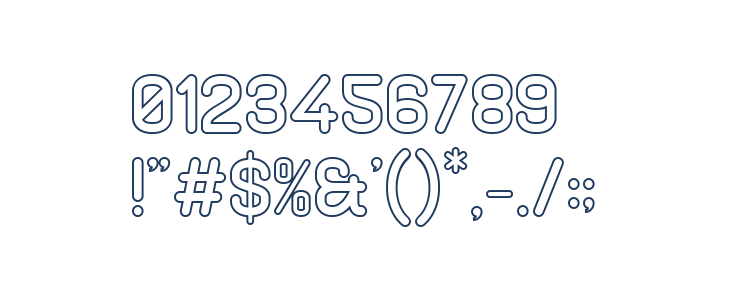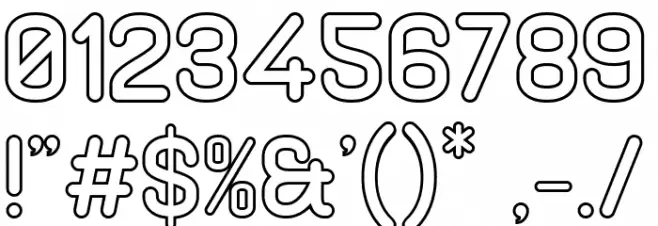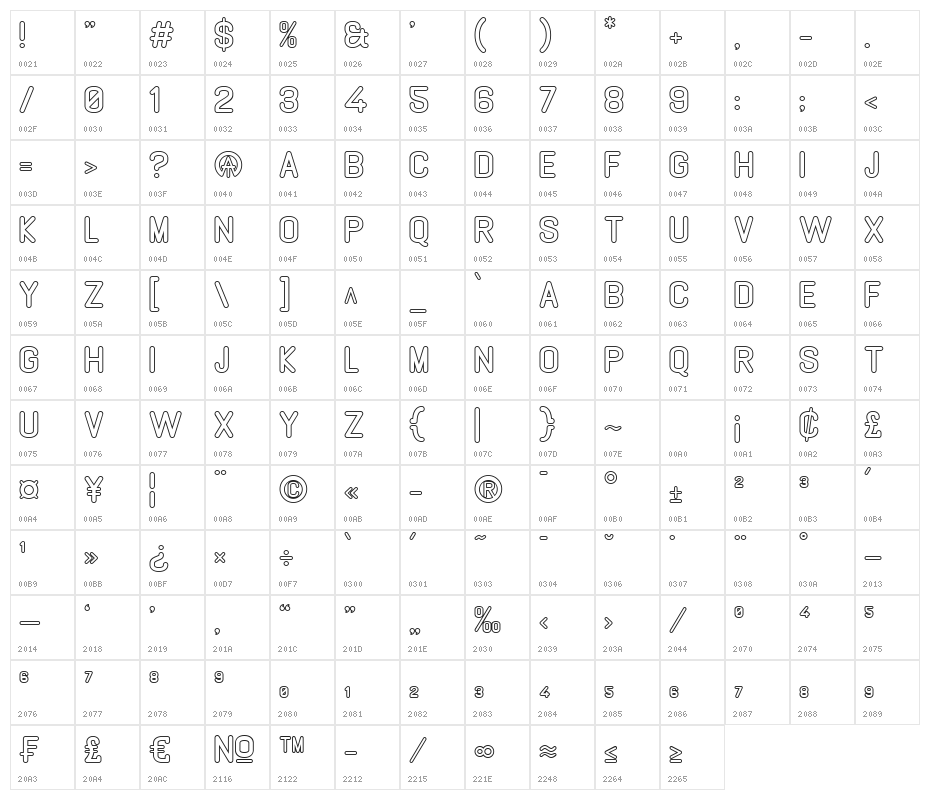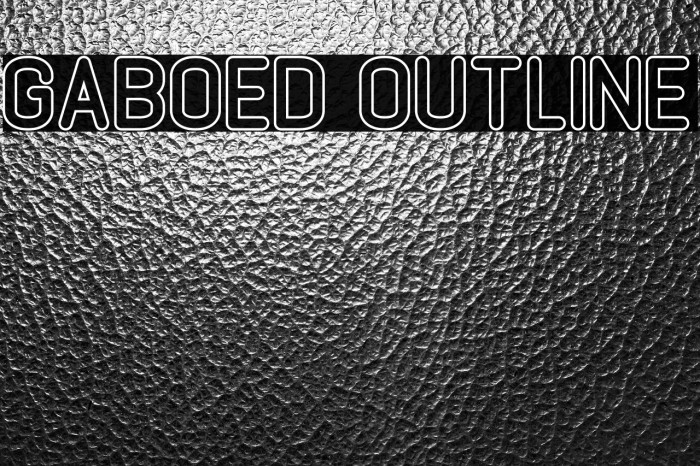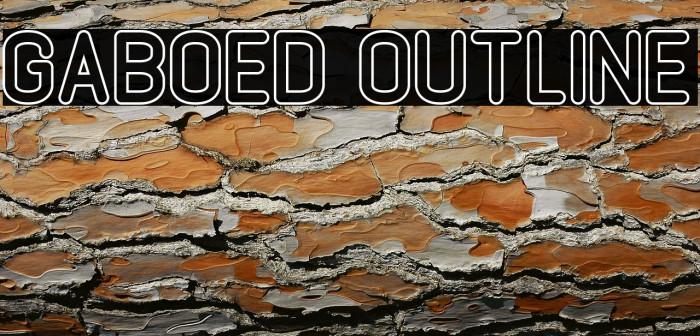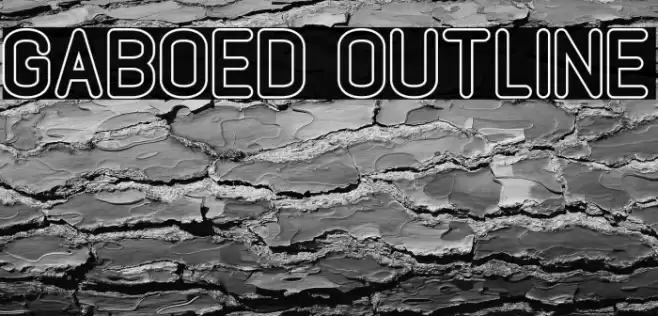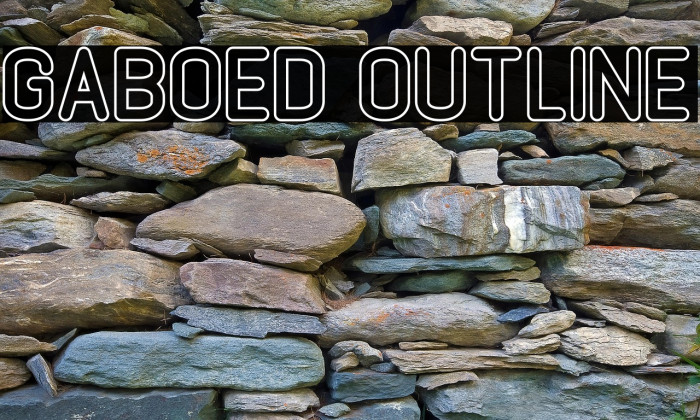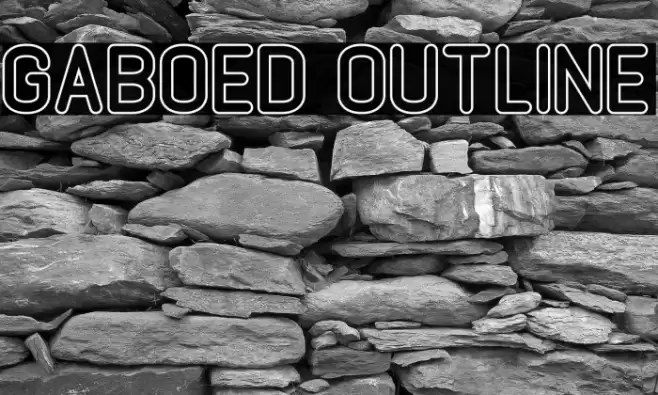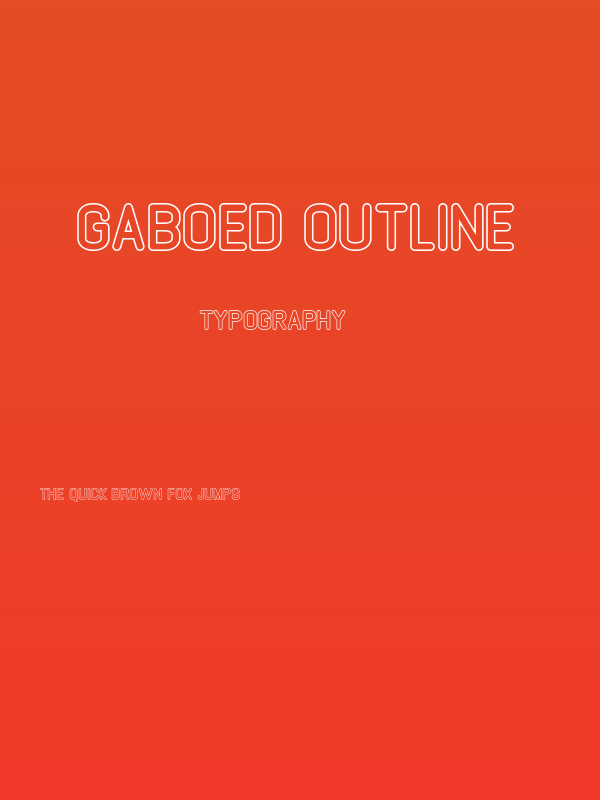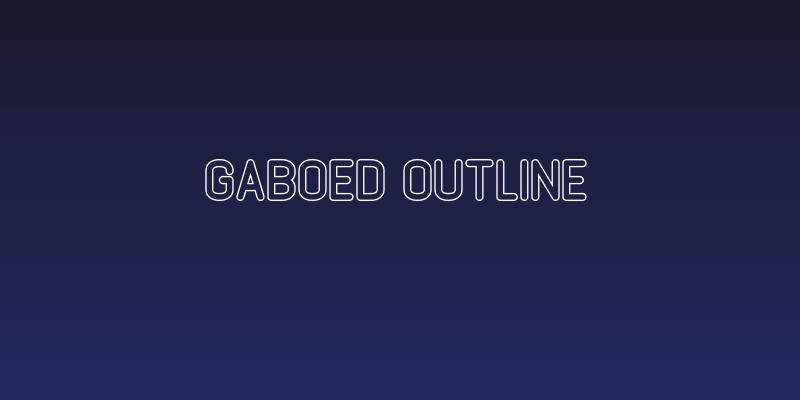
GABOED Outline Font
GABOED Outline Description
This font features a clean and modern outline style, with each character defined by a bold, uniform line that creates a hollow effect. The uppercase letters are consistent in height and width, providing a balanced and structured appearance. The numerals and special characters maintain the same outline style, ensuring uniformity across all glyphs. The design is simple yet striking, making it suitable for projects that require a contemporary and eye-catching look. The font's geometric shapes and clear lines make it highly legible, even at smaller sizes.
Proposed ProjectsIdeal for branding, headlines, posters, and digital media where a modern and distinctive look is desired.